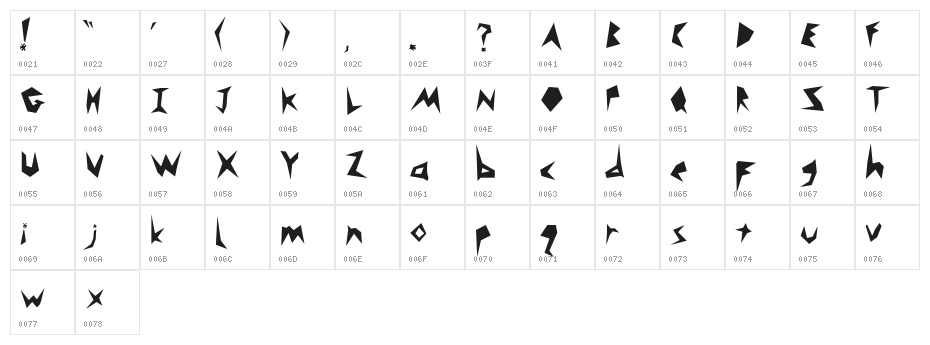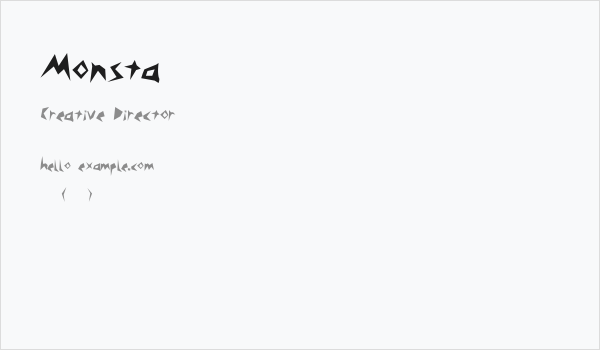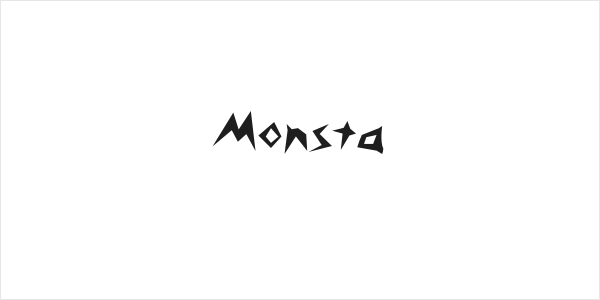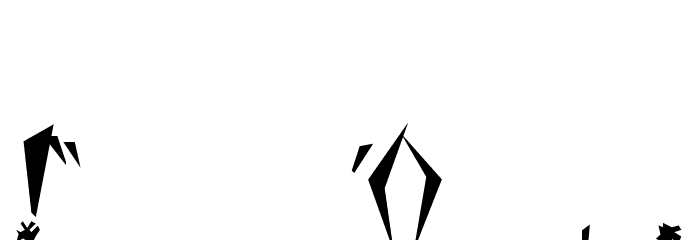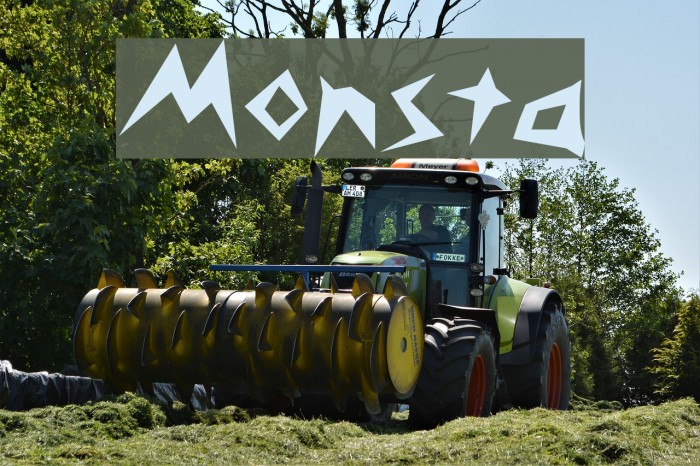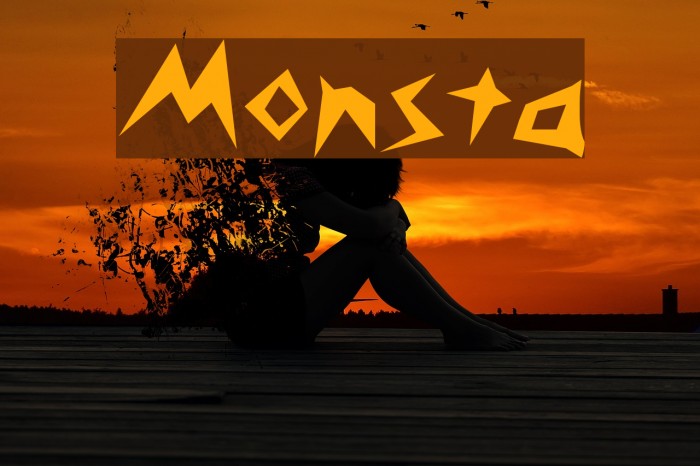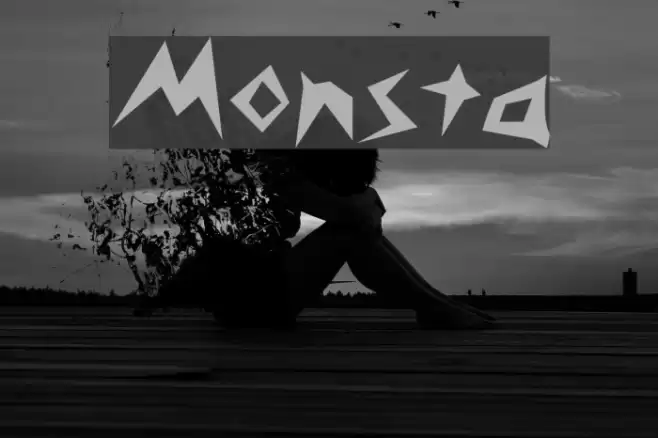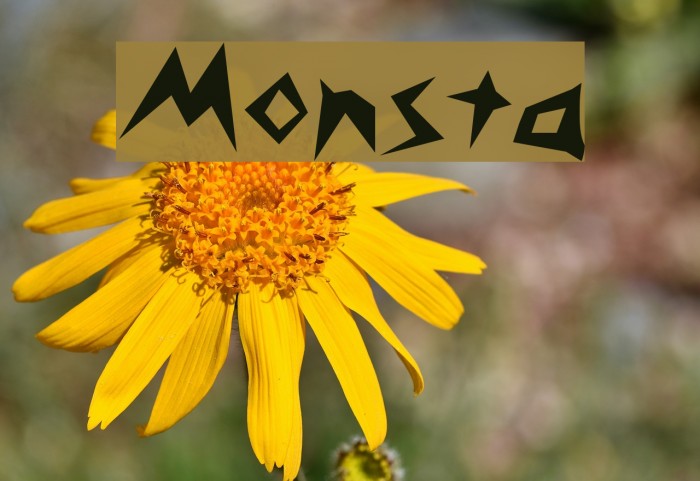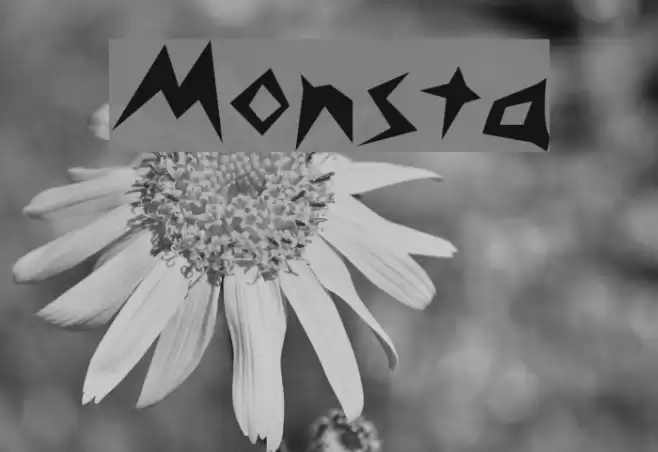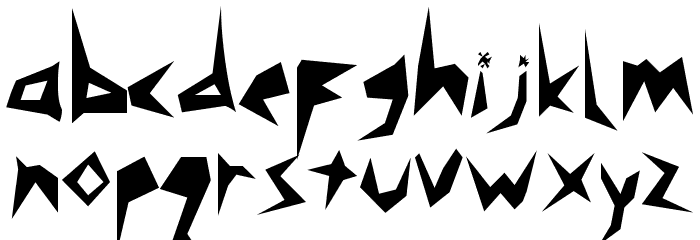
Monsta Font
Monsta Description
This font features a bold and jagged design, reminiscent of sharp, angular shapes that create a sense of movement and energy. The uppercase and lowercase letters maintain a consistent style, with exaggerated points and edges that give a dynamic and edgy appearance. The numbers and special characters follow the same aesthetic, ensuring uniformity across all glyphs. This font is ideal for projects that require a strong, impactful visual presence, such as posters, album covers, or branding for edgy or alternative products.
| Overall Style | Modern, Edgy |
| Proposed Projects | Ideal for posters, album covers, edgy branding, and alternative product designs. |